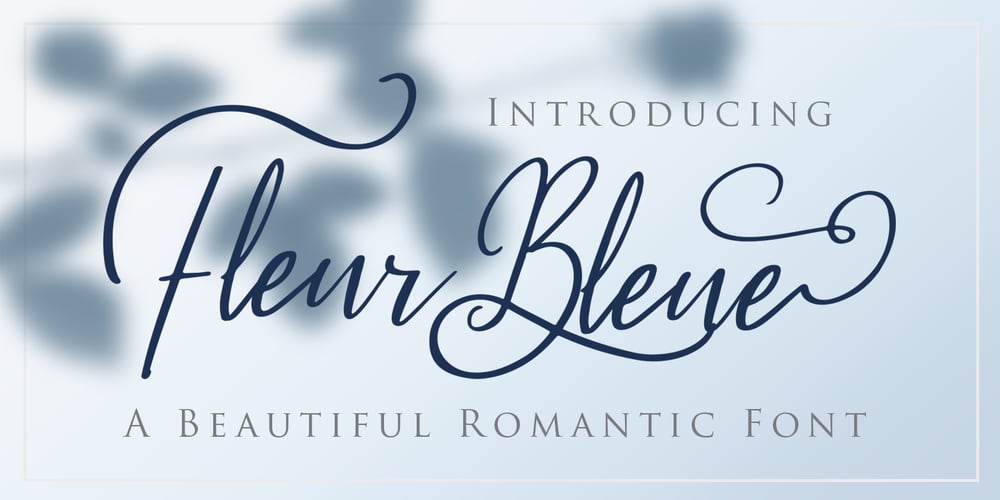
Fleur Bleue
Fleur Bleue font
Fleur Bleue Font Family was designed by Dimas Prasetyo and published by DM Studio. Fleur Bleue contains 1 styles and family package options. The Fleur Bleue Beautiful Romantic Font is a graceful and elegant typeface that encapsulates the beauty and romance of delicate flowers. With its flowing letterforms and intricate details, this font brings a touch of sophistication and romance to your designs, making it perfect for wedding invitations, love letters, branding, and other projects that require a touch of enchantment.Features: Romantic and Elegant Style: The Fleur Bleue Font exudes a romantic and enchanting aesthetic. Its graceful letterforms and delicate details create an air of elegance and beauty, making it ideal for projects that require a touch of romance and sophistication. Beautiful Floral Design: The font’s intricate details and floral elements add a touch of enchantment and whimsy to your typography. It captures the essence of delicate flowers, bringing a sense of natural beauty to your designs. Versatile Application: This font is versatile and well-suited for various design projects that aim to evoke emotions of love and romance. Use it in wedding invitations, love letters, branding, packaging, and more to add a touch of beauty and enchantment to your designs. Uppercase and Lowercase Letters: The font includes both uppercase and lowercase letters, providing flexibility and creative freedom in your designs. Mix and match the cases to create visually appealing and harmonious typography. Stylistic Alternates: The Fleur Bleue Font offers a selection of stylistic alternates that enhance the visual interest of your text. These special characters create unique connections between letters and alternate forms, allowing you to create beautiful and captivating typography. Punctuation and Symbols: In addition to the alphabet, the Fleur Bleue Font includes a comprehensive set of punctuation marks, numerals, and common symbols. This ensures consistency and ease of use when incorporating the font into your design projects. Easy to Use: Installing and utilizing the Fleur Bleue Font is hassle-free. It is compatible with both Windows and Mac operating systems and seamlessly integrates into popular design software such as Adobe Photoshop, Illustrator, and InDesign. This ensures a smooth and efficient design workflow. Infuse your designs with the grace and romance of the Fleur Bleue Beautiful Romantic Font. Let its flowing letterforms and intricate details bring a touch of sophistication and enchantment to your wedding invitations, love letters, and branding. Embrace the timeless beauty of this font and create designs that evoke feelings of love and admiration.